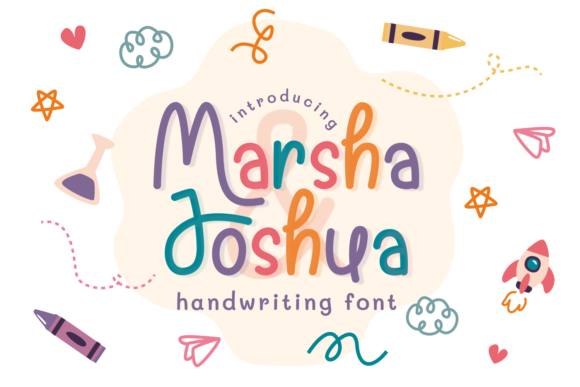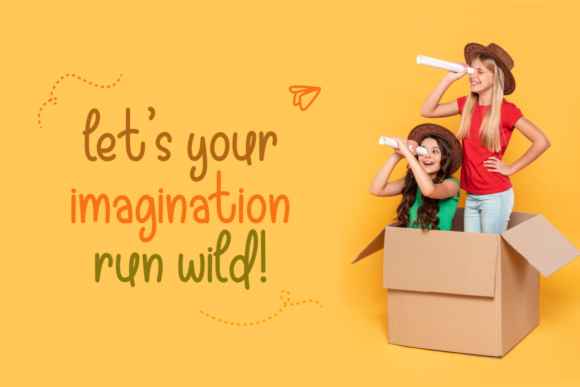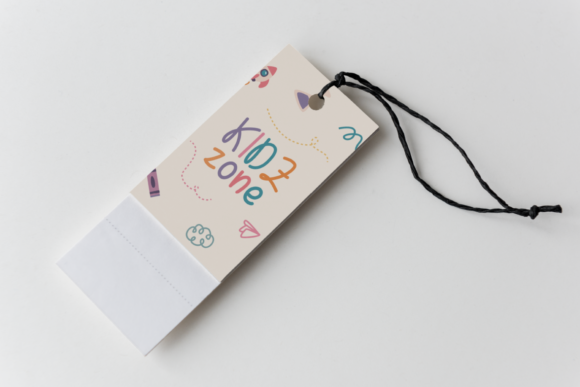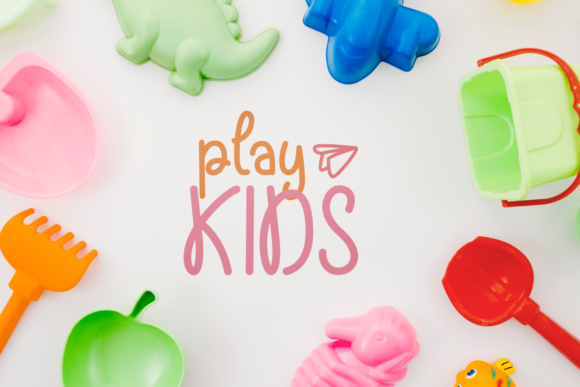
About Marsha Joshua Font
Marsha Joshua is a magical and whimsical handwritten font. It is the best choice for creating eye catching logos, branding and quotes. Every letter has a unique and beautiful touch, which will make your designs come alive!